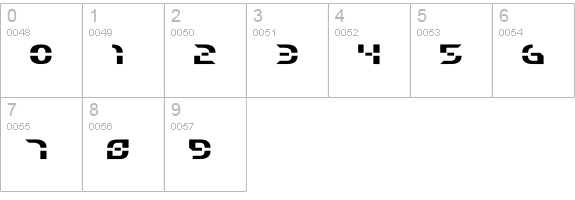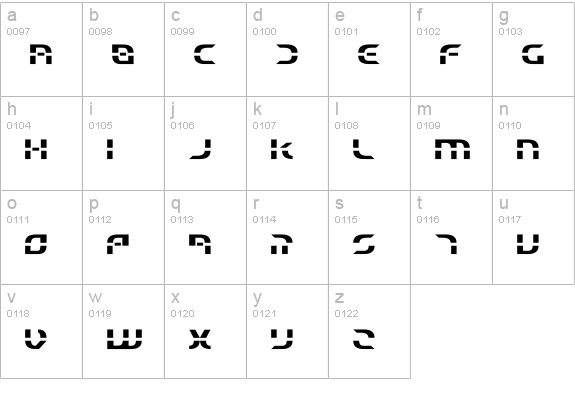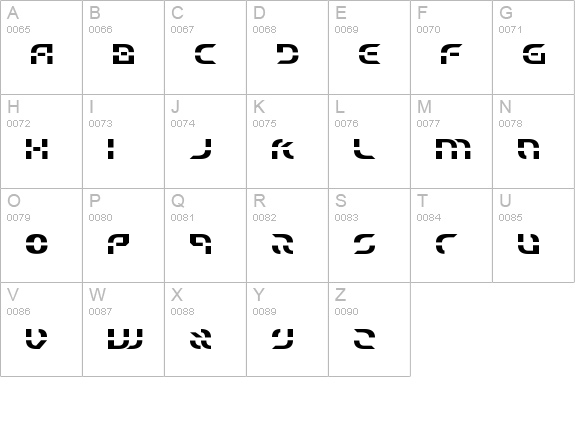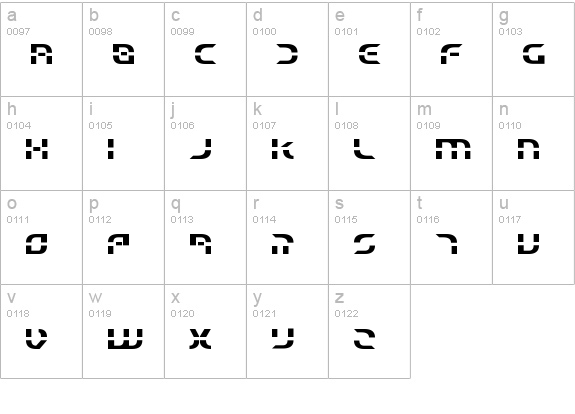
Introducing Starfighter Beta, a captivating and dynamic font that will transport your designs to new interstellar heights. With its sleek and futuristic aesthetic, this font is perfect for projects that require a touch of modernity and innovation. Starfighter Beta is not only visually stunning, but it also boasts a powerful versatility that can adapt to various design concepts. Whether you're creating logos, headlines, posters, or even gaming graphics, this font will effortlessly capture attention and leave a lasting impression. What makes Starfighter Beta even more remarkable is that it is freely available to download at FontsMarket.com. Yes, you read that right - this incredible font is completely free! Now, you can enhance your projects with an extraordinary typeface without breaking the bank. With its clean lines and bold presence, Starfighter Beta embodies the spirit of exploration and adventure. Each letter exudes a sense of energy and movement, while its carefully crafted curves and angles create a sense of balance and harmony. This font truly embodies the essence of futuristic design. To add even more versatility, Starfighter Beta includes a wide range of uppercase and lowercase characters, as well as numerals and punctuation marks. This comprehensive set ensures that you have all the tools you need to bring your creative visions to life. So why settle for ordinary when you can soar to extraordinary heights with Starfighter Beta? It's time to unleash your imagination and elevate your designs with this captivating font. Remember, Starfighter Beta is freely available for download exclusively at FontsMarket.com. Don't miss out on this incredible opportunity to take your projects to the next level. Grab this font today and let your creativity take flight!